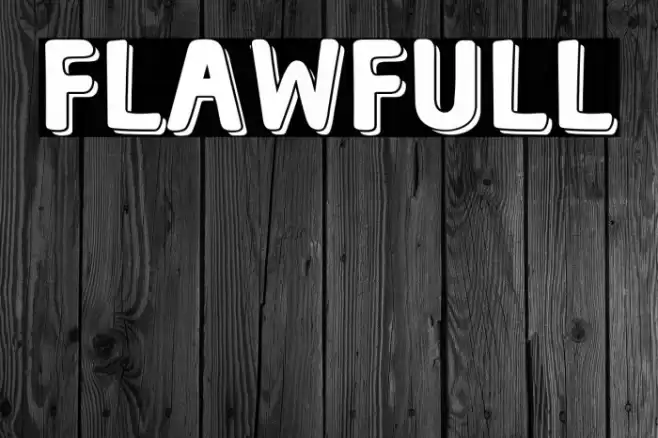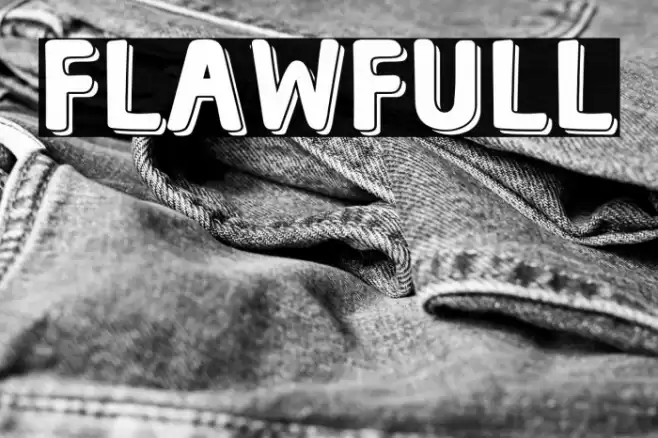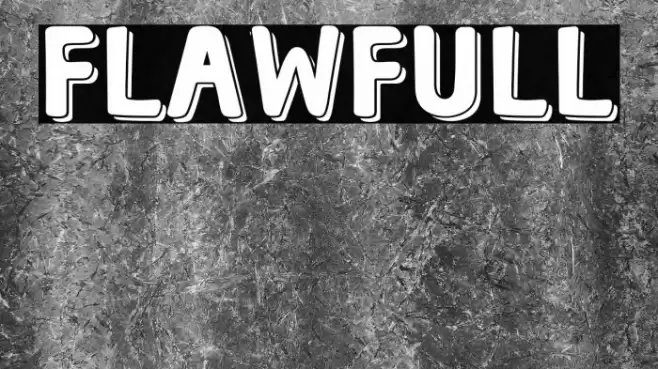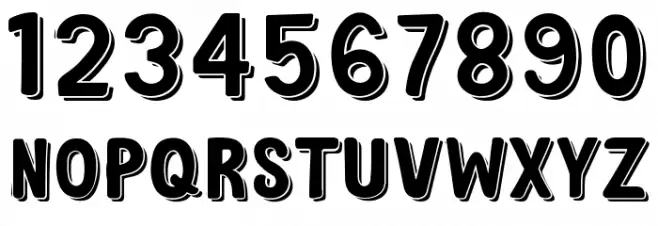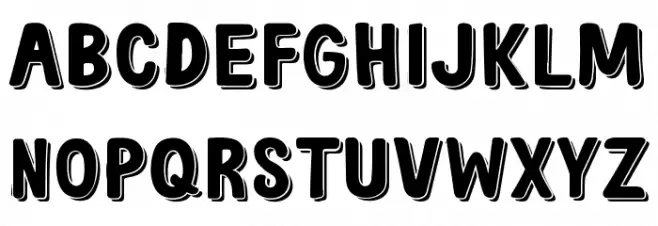
FLAWFULL Font
FLAWFULL Description
This font features bold, playful characters with a distinct outline that gives each letter a shadowed effect. The uppercase letters are rounded and slightly condensed, creating a friendly and approachable appearance. The numbers and special characters maintain the same style, ensuring consistency across all elements. The font's design is reminiscent of retro styles, making it suitable for projects that require a touch of nostalgia. Its boldness and unique outline make it stand out, ideal for attention-grabbing headlines or creative designs.
A bold, playful font with a retro outline style from Uncategorized fonts.
- Proposed Projects: Ideal for retro-themed posters, children's book covers, playful branding, and eye-catching headlines.
- Width: Condensed
- Overall Style: Retro, Playful